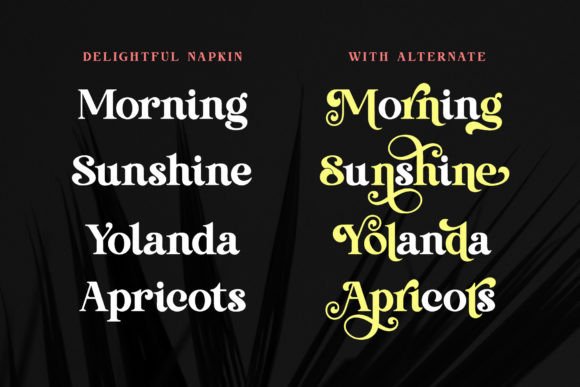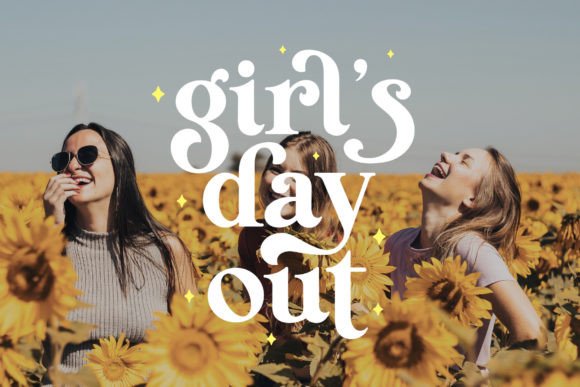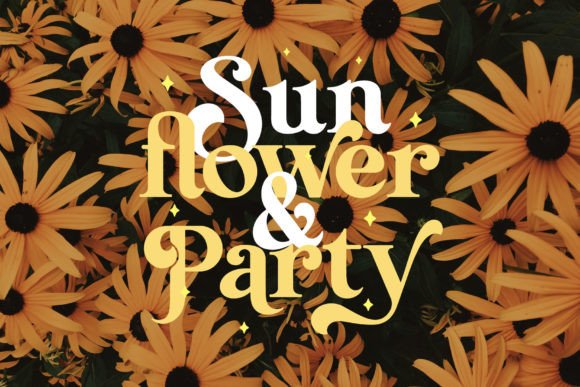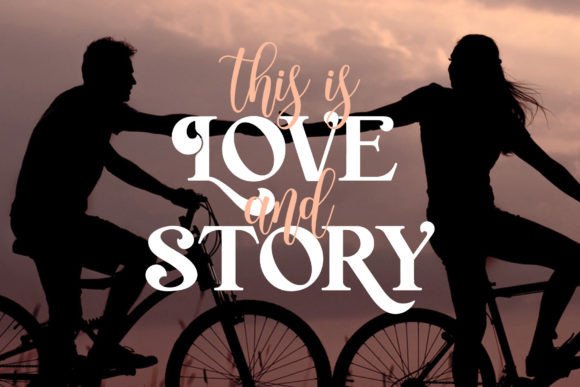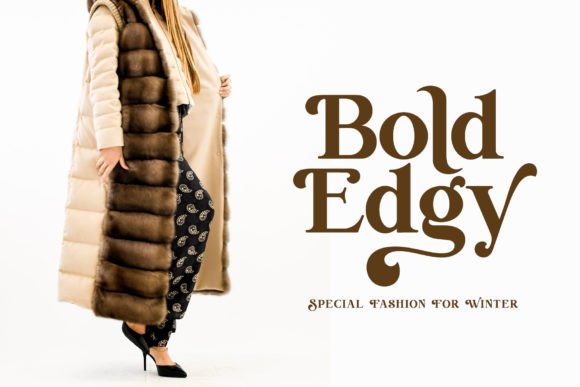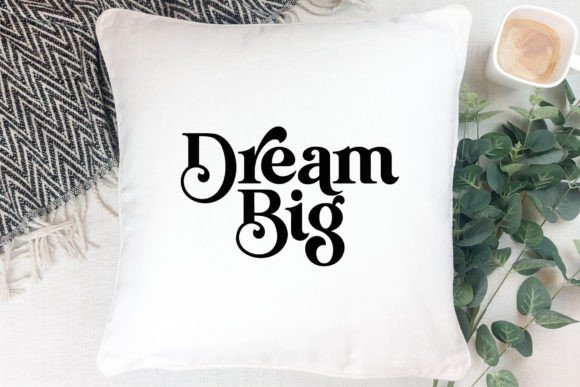
Introducing the Delightful Napkin Font: Elevate Your Designs with Vintage Elegance
In the world of typography, fonts play a crucial role in conveying the tone and aesthetic of a design. For designers and crafters looking to add a touch of sophistication and elegance to their projects, the Delightful Napkin font is an excellent choice. This vintage serif font strikes the perfect balance between modern and fancy design elements, making it an ideal selection for a wide range of applications.
The Charm of Delightful Napkin
Delightful Napkin is more than just a font; it’s a statement piece that brings a sense of nostalgia and luxury to any design. Its elegant curves and ornate details are reminiscent of classic typography, while its clean lines and modern sensibilities ensure it feels fresh and current. This unique blend of old and new makes Delightful Napkin a versatile font suitable for various design projects, from formal invitations and branding materials to packaging and digital content.
Key Features of Delightful Napkin
- Vintage Serif Design: Delightful Napkin boasts a classic serif design with a vintage twist, adding a layer of sophistication to your designs.
- Elegant Curves and Ornate Details: The font’s elegant curves and intricate details give it a luxurious feel, perfect for designs that require a touch of elegance.
- PUA Encoded: Delightful Napkin is PUA (Private Use Area) encoded, which means you can access all glyphs and swashes effortlessly, giving you greater creative control over your typography.
- Modern and Fresh Feel: Despite its vintage roots, Delightful Napkin has a modern sensibility that ensures it will complement contemporary designs.
Applications of Delightful Napkin
The versatility of Delightful Napkin makes it suitable for a wide array of design projects. Here are some of the ways you can use this delightful font:
- Invitations and Stationery: Add a touch of class to your wedding invitations, event invites, or personal stationery with Delightful Napkin’s elegant typography.
- Branding and Logo Design: Use Delightful Napkin to create a sophisticated brand identity that stands out from the crowd.
- Packaging Design: Elevate your product packaging with a font that exudes luxury and quality.
- Digital Content: Whether you’re designing a website, creating social media graphics, or crafting email newsletters, Delightful Napkin can add a level of refinement to your digital content.
Why Choose Delightful Napkin?
In a sea of fonts, Delightful Napkin stands out for its unique blend of vintage charm and modern appeal. Here are a few reasons why designers and crafters are drawn to this font:
- Uniqueness: Delightful Napkin offers a distinctive look that can help your designs stand out.
- Versatility: Its adaptability makes it suitable for a wide range of projects, from print to digital.
- Ease of Use: Being PUA encoded means you can easily access and use all the font’s features without hassle.
- Support for Creative Projects: Delightful Napkin is designed to support and enhance creative projects, providing a reliable and beautiful typography solution.
Delightful Napkin is a stunning vintage serif font that brings a touch of elegance and sophistication to any design project. Its perfect blend of modern and fancy design elements, coupled with its PUA encoding for easy access to glyphs and swashes, makes it an invaluable asset for designers and crafters. Whether you’re creating formal invitations, branding materials, or digital content, Delightful Napkin is sure to elevate your designs and leave a lasting impression.